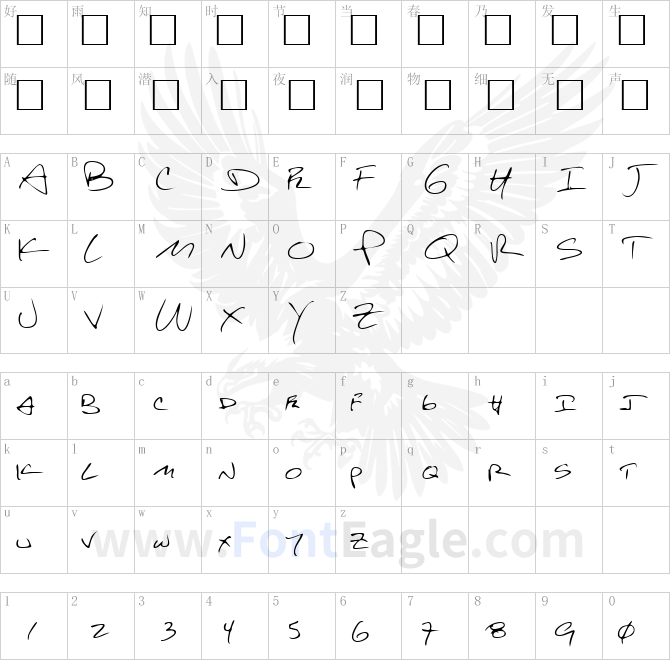
- Font name:KelseysHand
- Font Subfamily ID:Weatherly Systems, Inc. KelseysHand Regular
- Font Full Name:KelseysHand Regular
- Postscript:KelseysHand-Plain